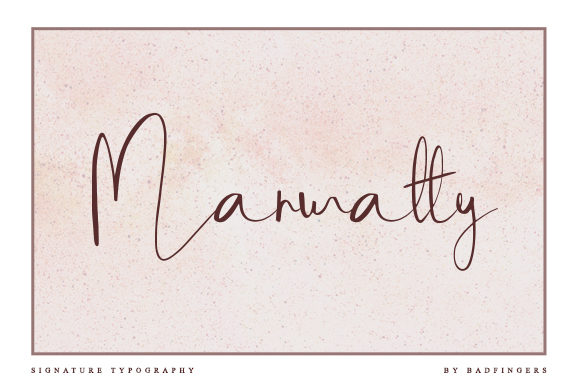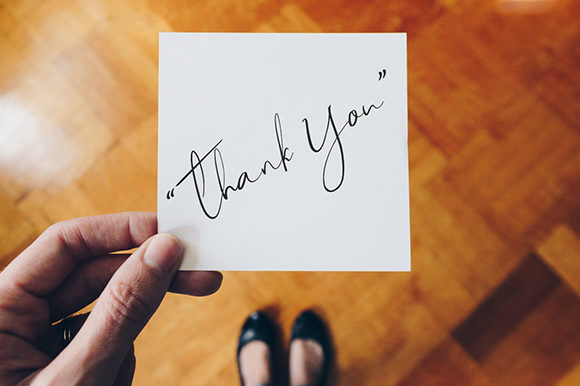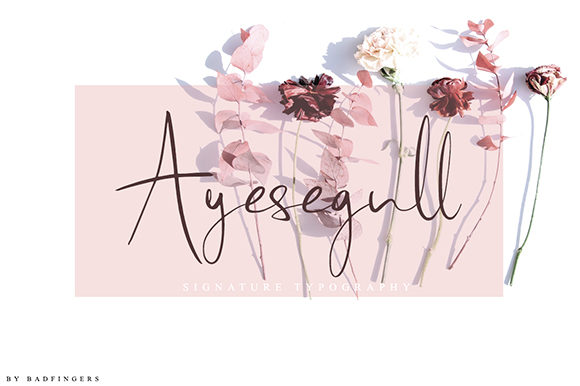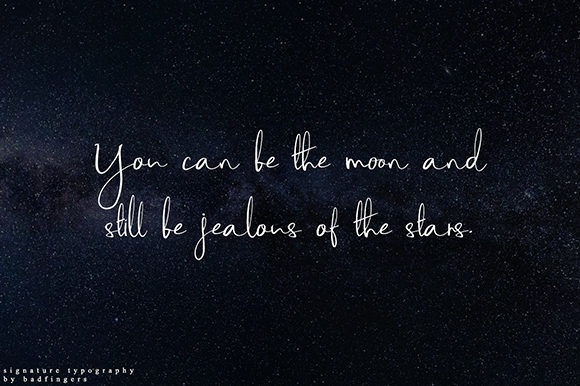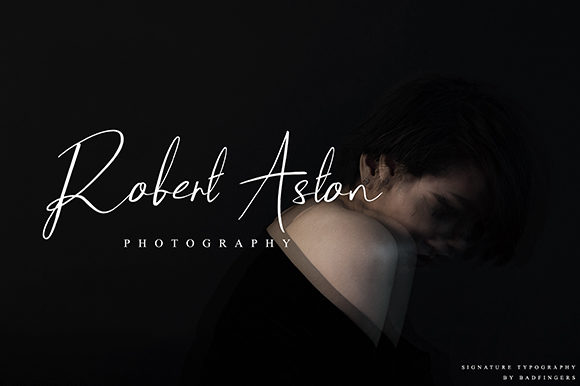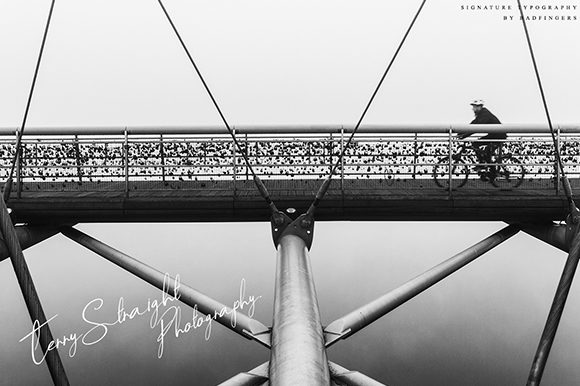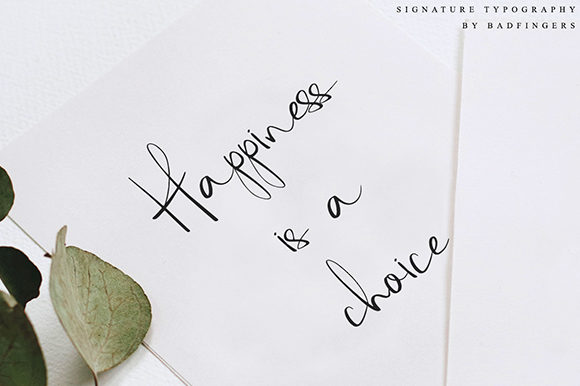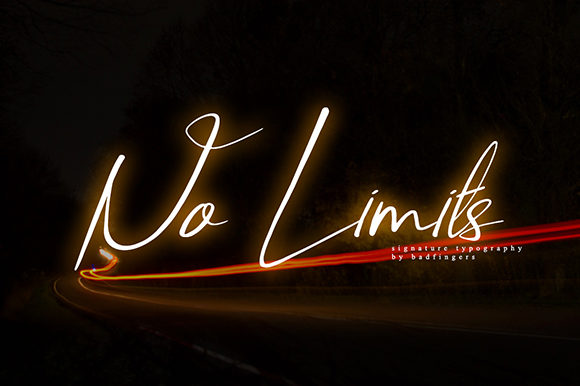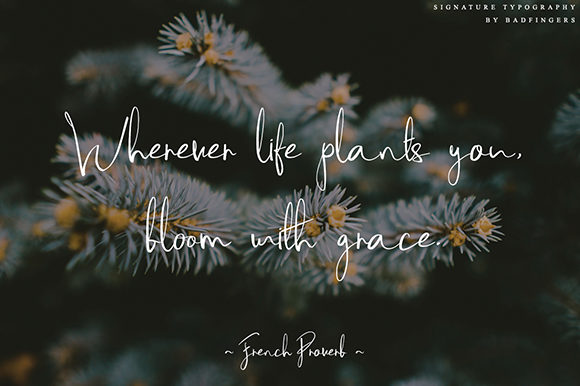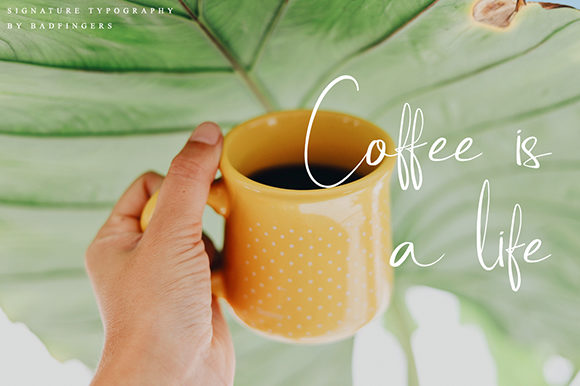
Marwatty Font
About Marwatty Font
The Marwatty is a beautiful signature typeface. It has a fresh and unique handmade feel to it, which makes it perfect for all designs which need an elegant typeface.